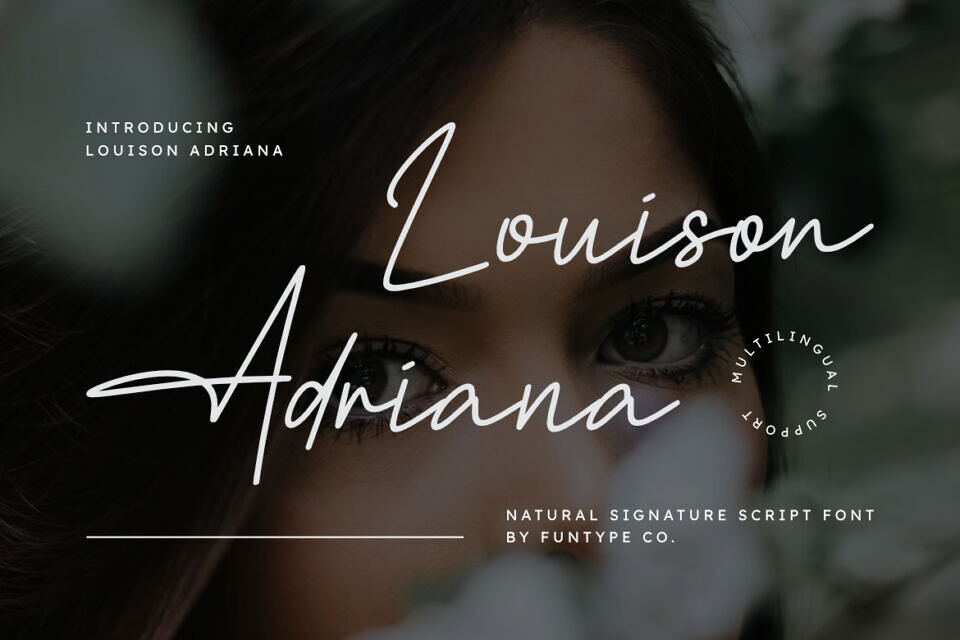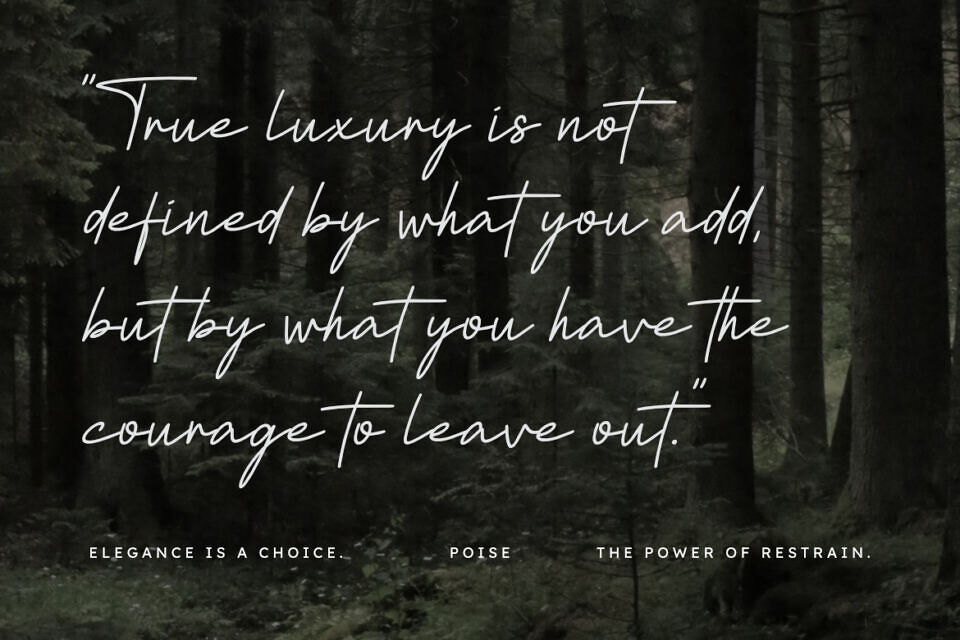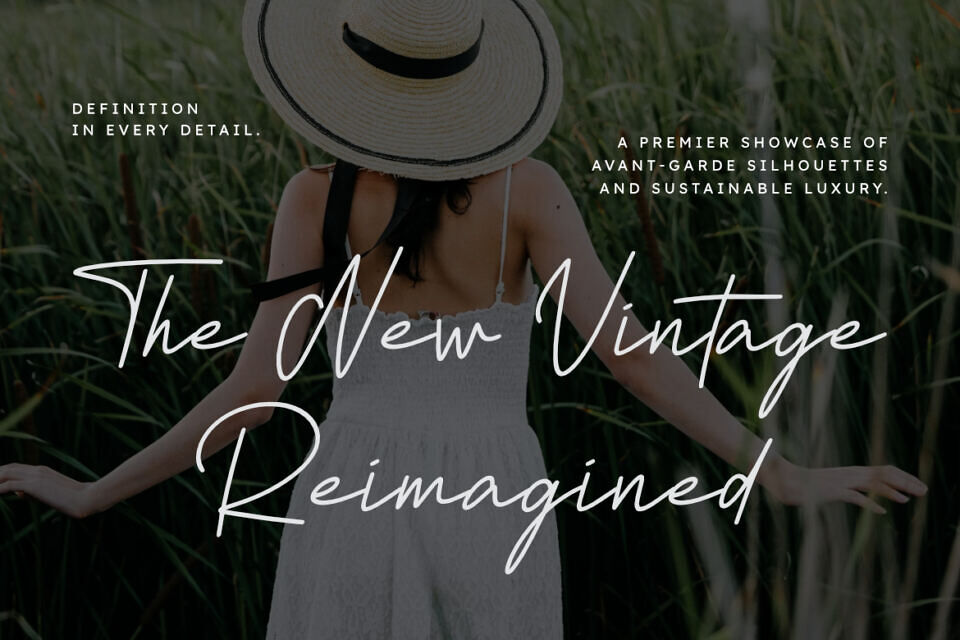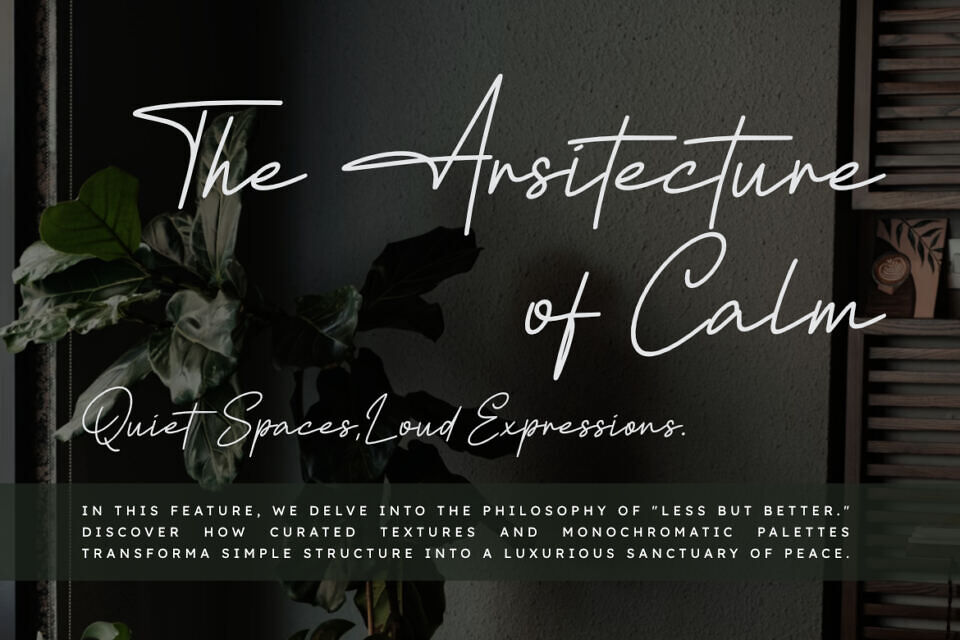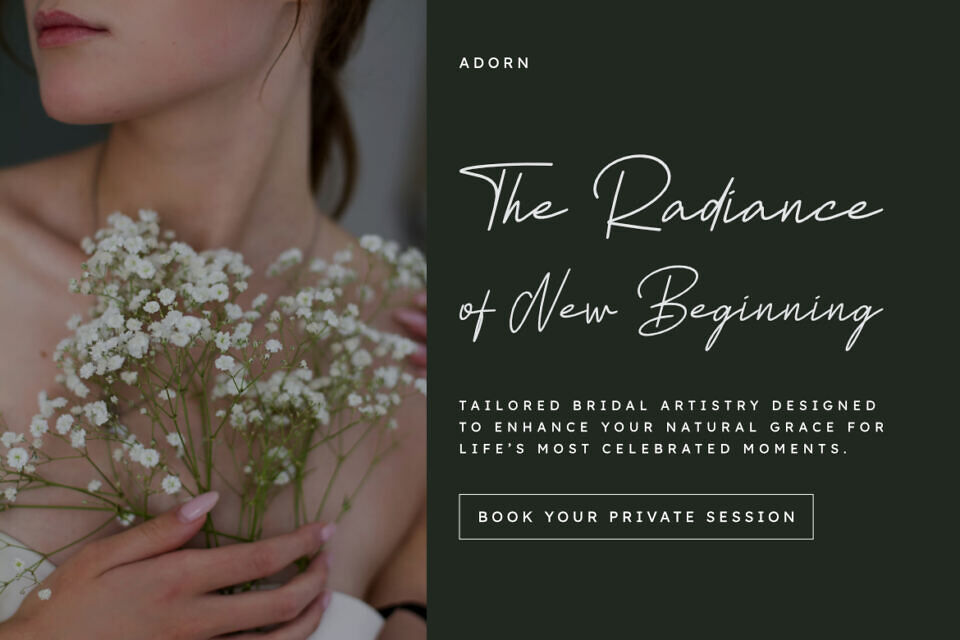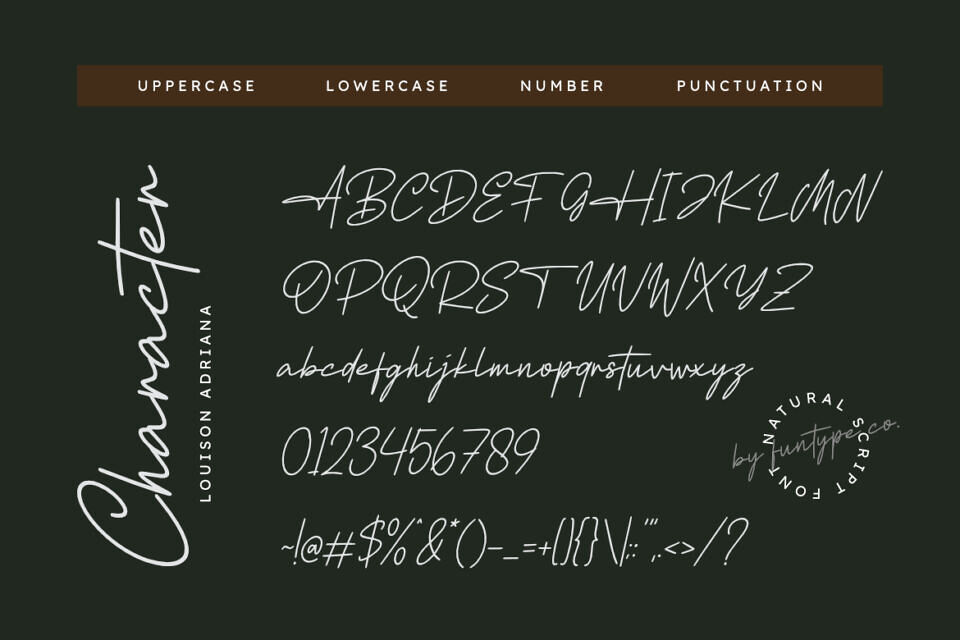
Louison Adriana Font
Louison Adriana is a sophisticated and clean natural signature script font, thoughtfully designed to capture the essence of modern elegance and intimate storytelling. With its consistent monoline weight and organic, flowing strokes, Louison Adriana offers a bespoke aesthetic that brings a touch of effortless grace to any creative project.
Whether you are crafting delicate wedding stationery, a chic lifestyle logo, or elegant editorial layouts, Louison Adriana provides a seamless blend of contemporary flair and timeless simplicity.